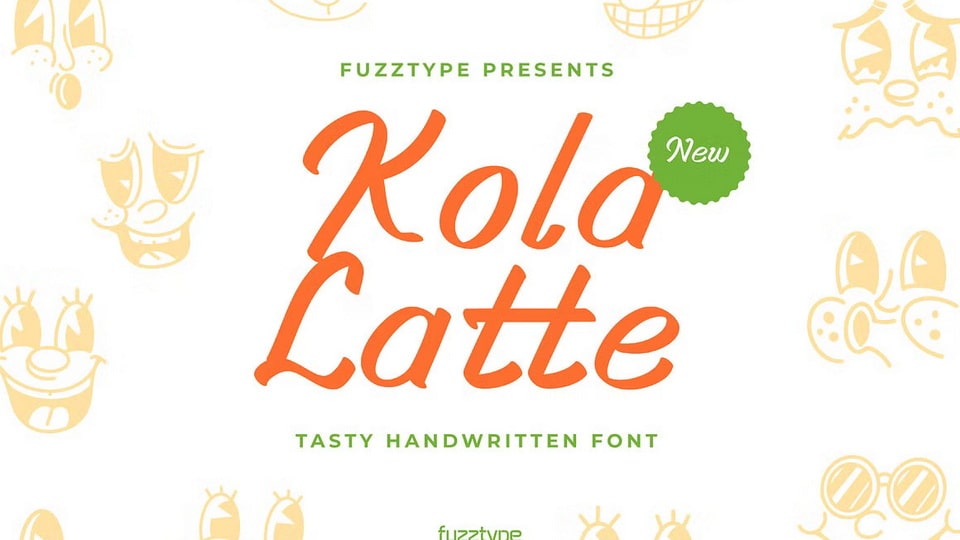
Download Kola Latte font, a captivating handwritten typeface. Its inspiration stems from the organic, flowing lines of hand-drawn elements, making it an ideal choice for a diverse range of designs.
Designer: Fuzztype